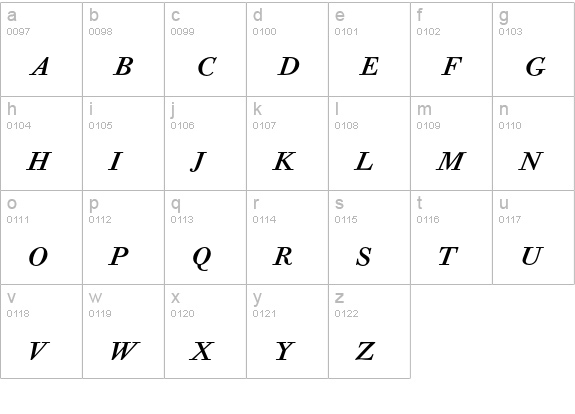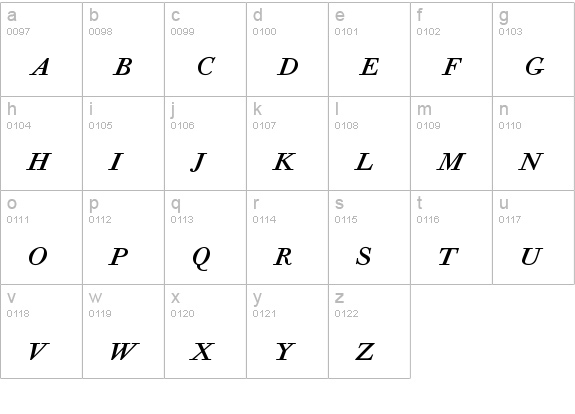
Bodoni Old Face BE ItalicSC font embodies classic elegance and sophistication with its refined letterforms and graceful curves. This timeless typeface exudes a sense of luxury and tradition, making it perfect for projects that require a touch of sophistication. The italic style adds a touch of flair and dynamism to the font, making it ideal for editorial designs, invitations, and branding projects. Its small caps variant further enhances its versatility, allowing for a harmonious and balanced appearance in various design settings. Best of all, Bodoni Old Face BE ItalicSC font is available for free download at FontsMarket.com. This means you can easily access this premium font without any cost, making it a valuable addition to your font library. Embrace the timeless beauty of Bodoni Old Face BE ItalicSC font and elevate your designs with its classic charm and refined aesthetic.